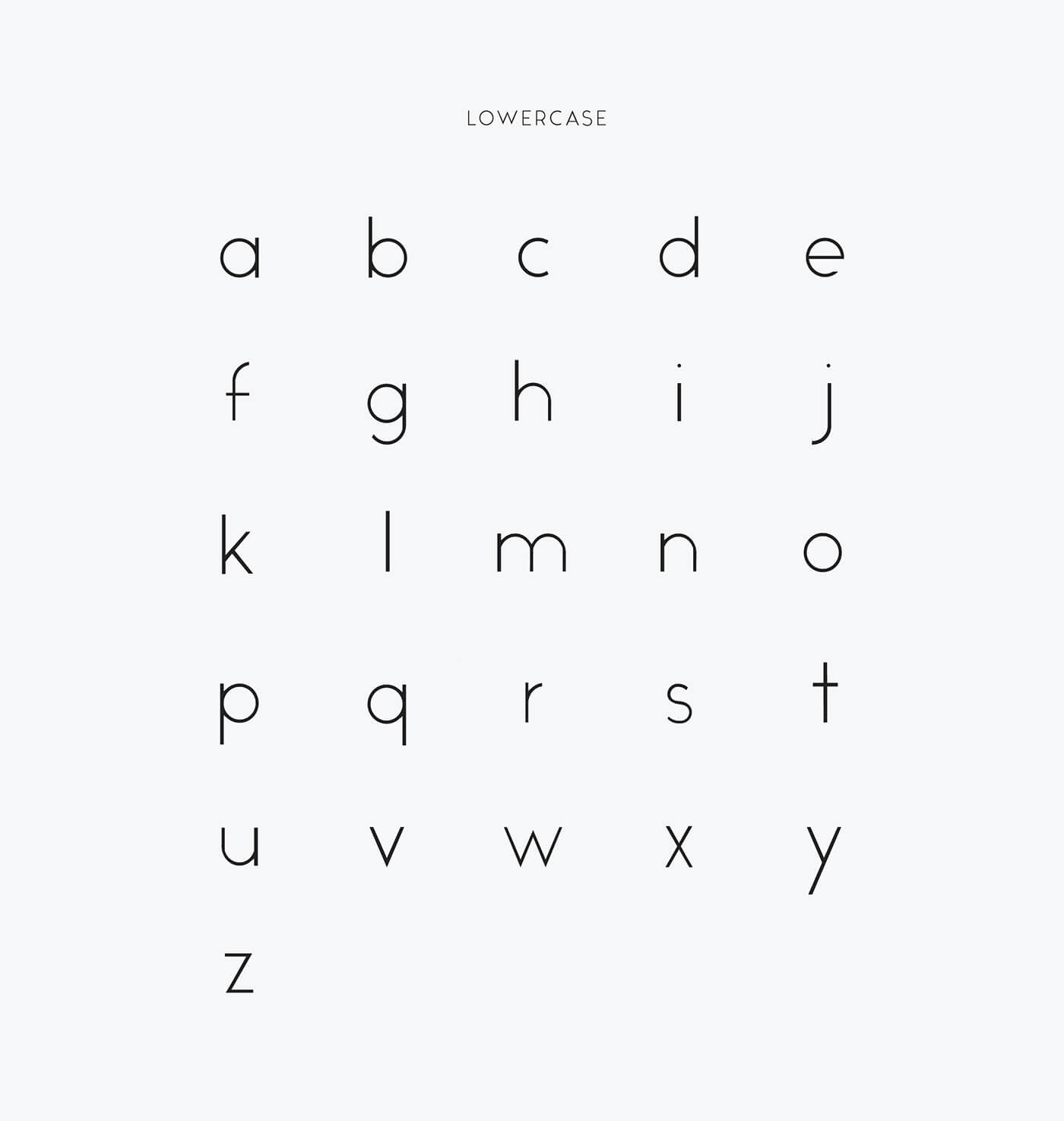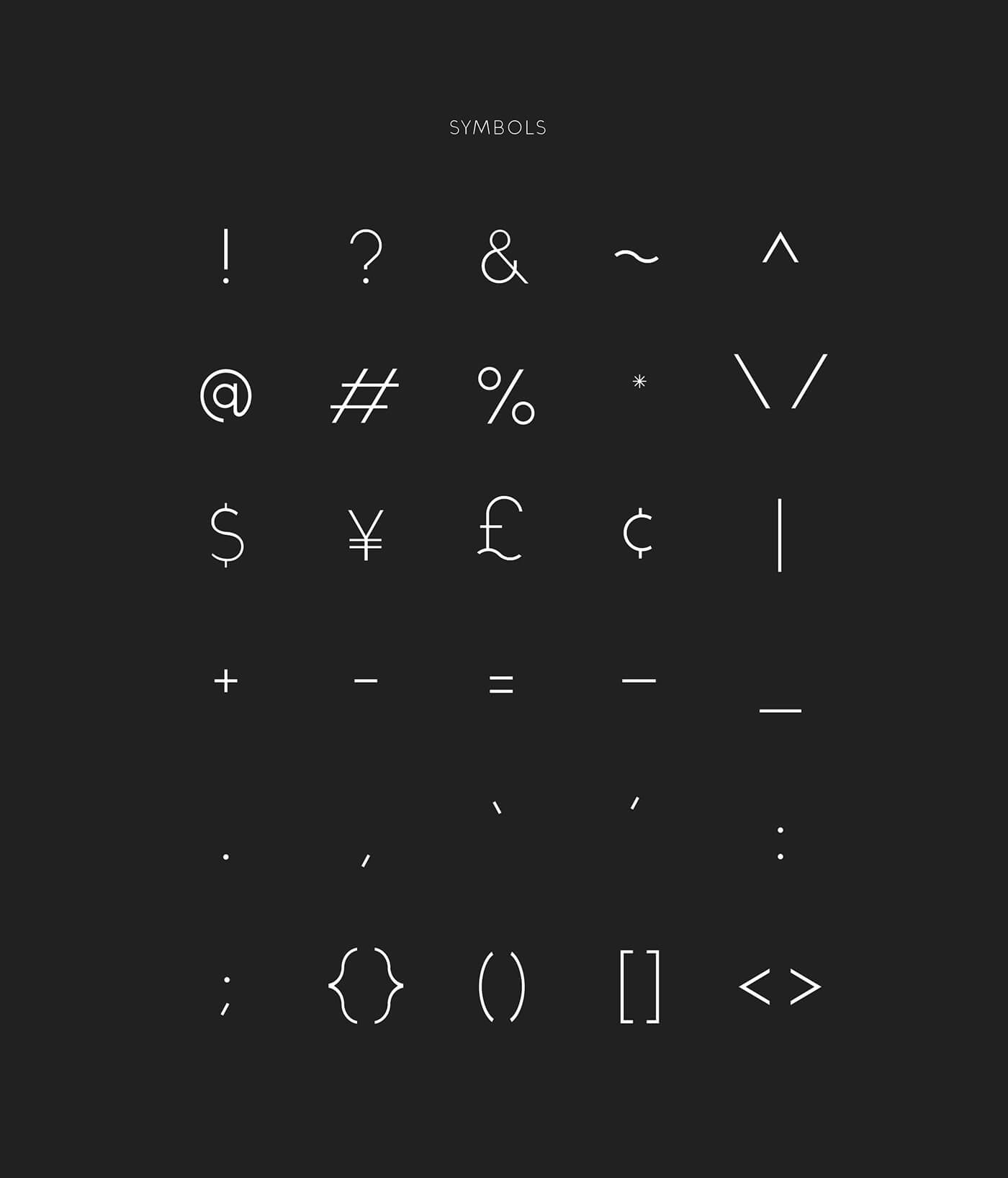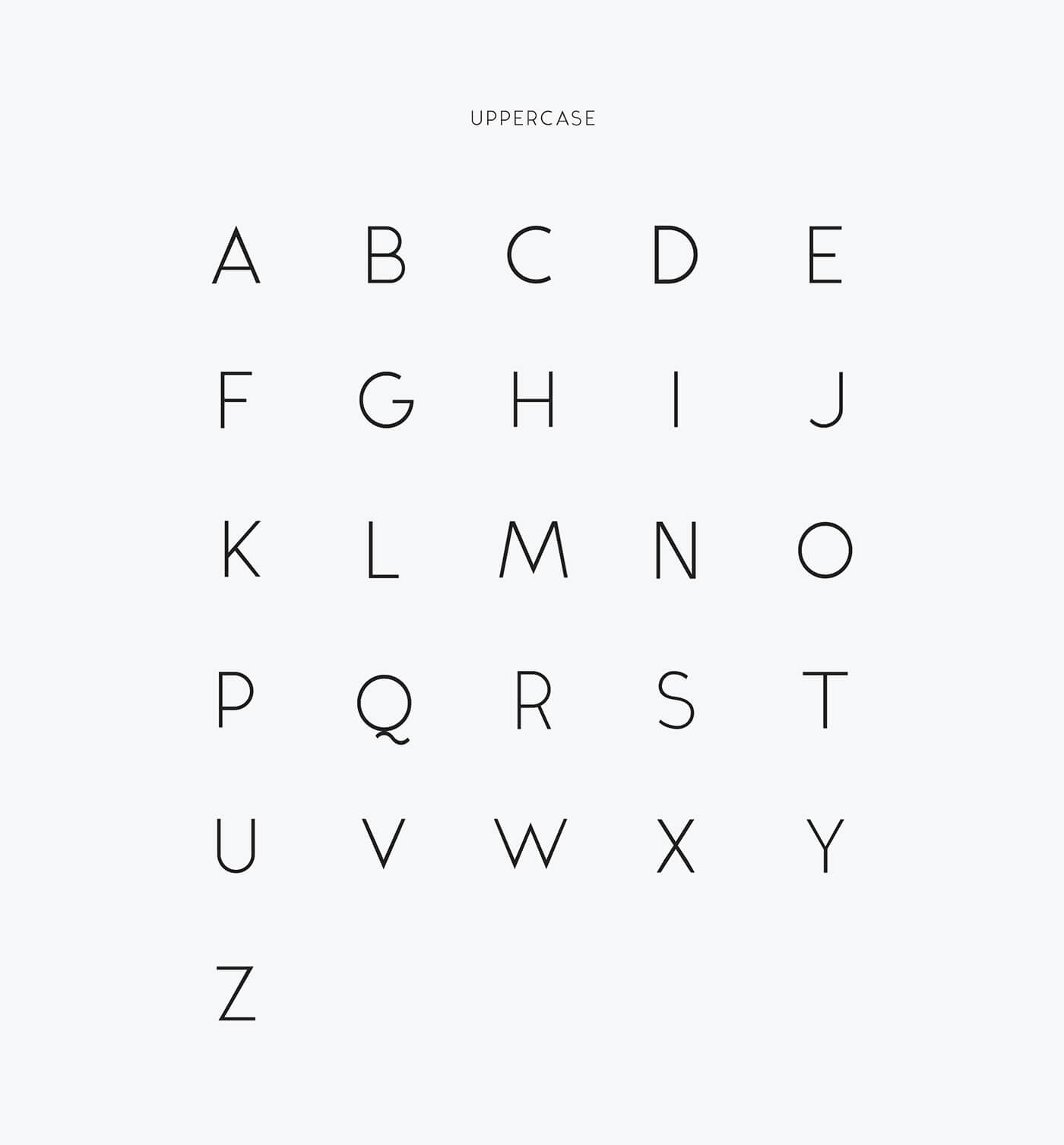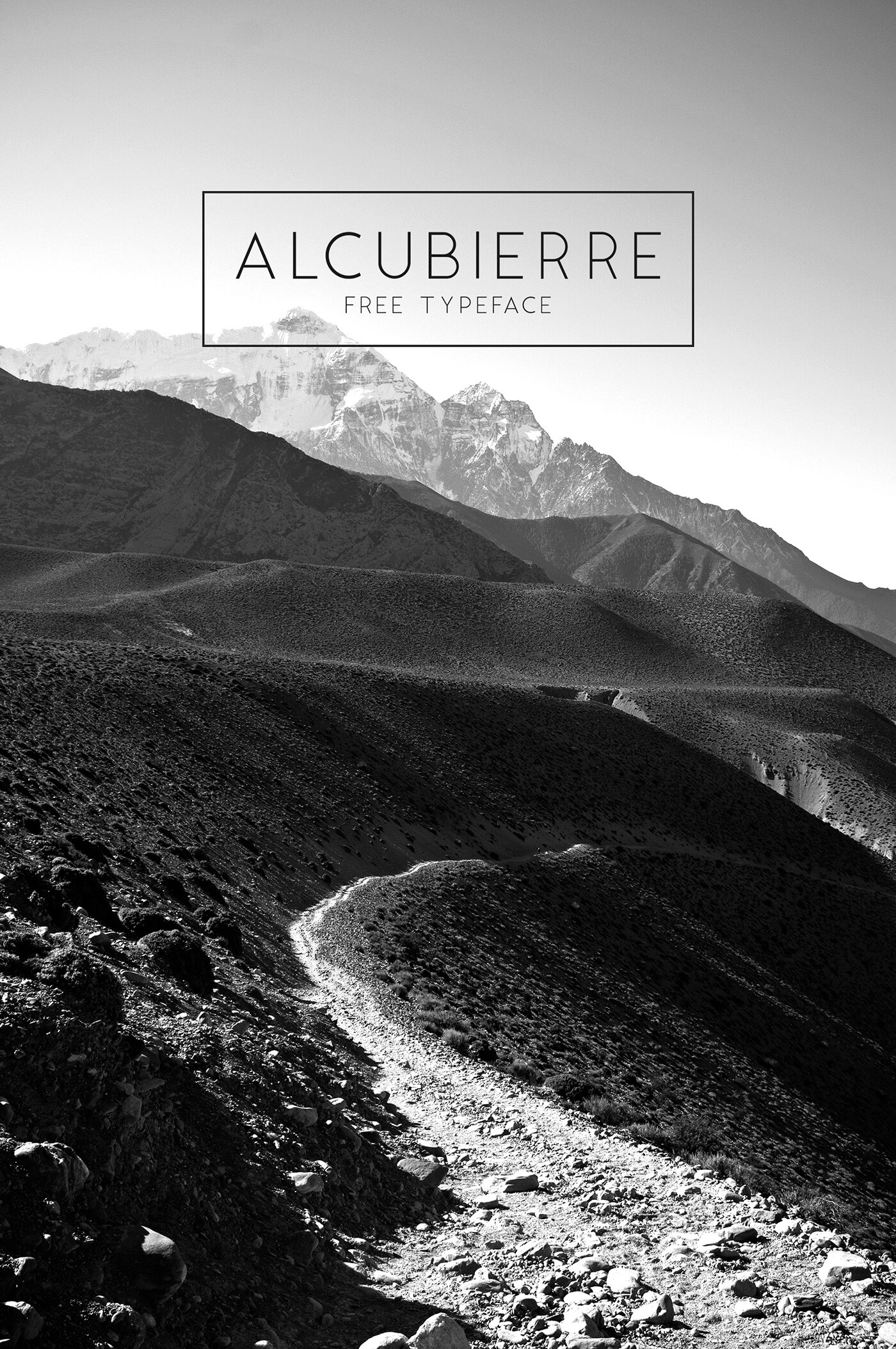
Alcubierre is a free typeface, very clean and geometric it’s sans serif. Matt Ellis is also the author of Ikaros and he explains that Alcubierre follows the steps of this previous typeface but more minimal. It’s available for personal and commercial use.